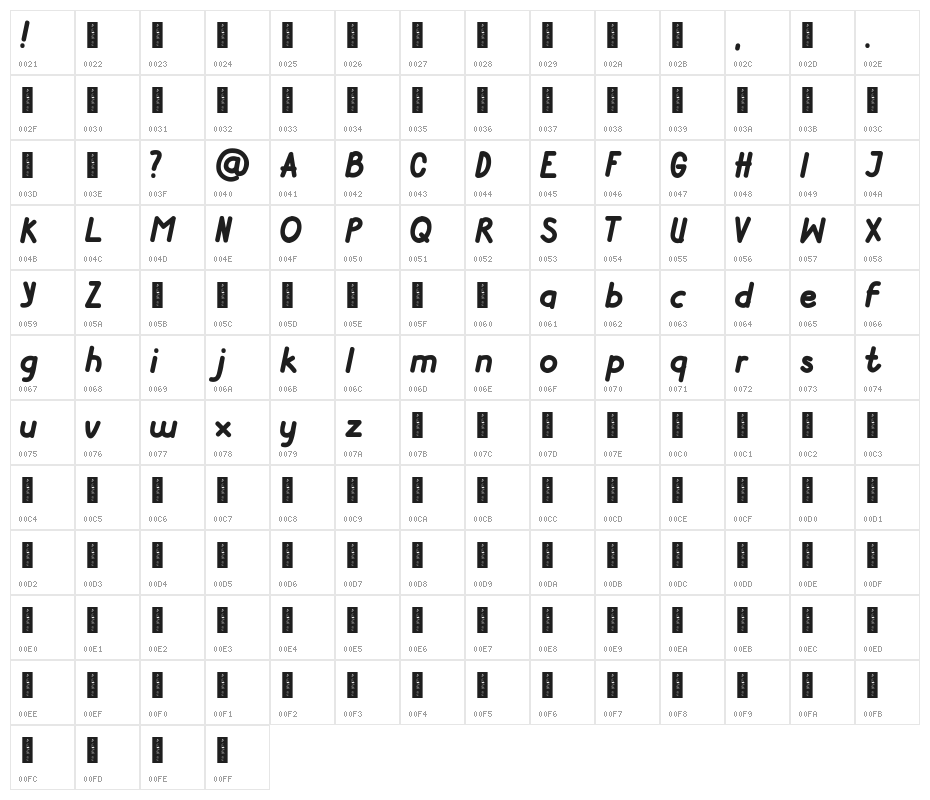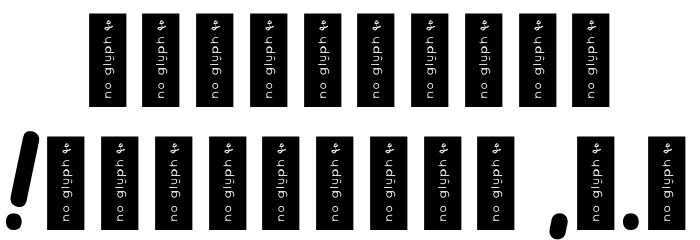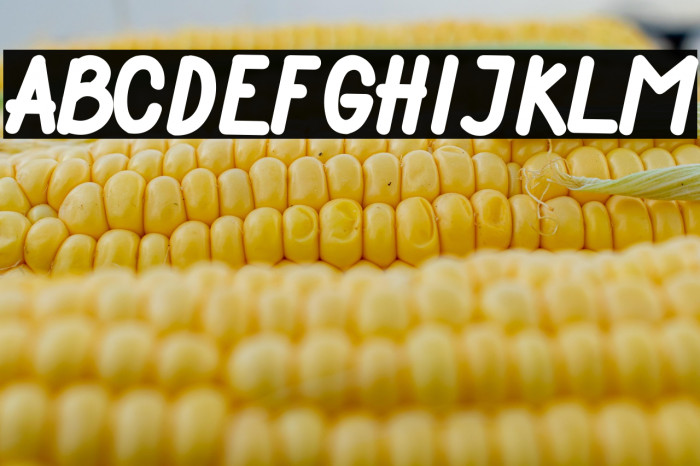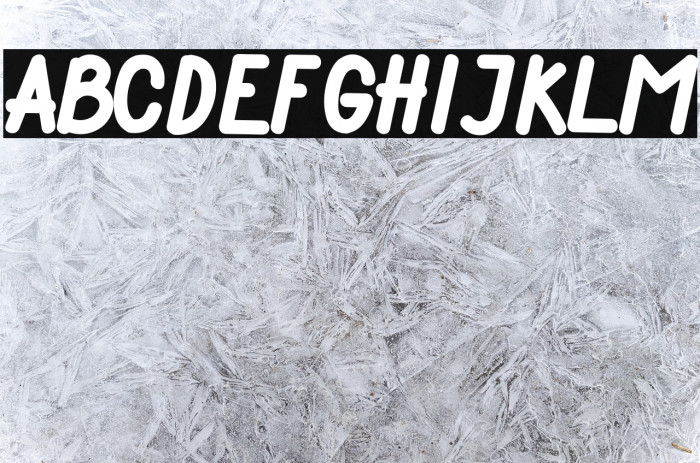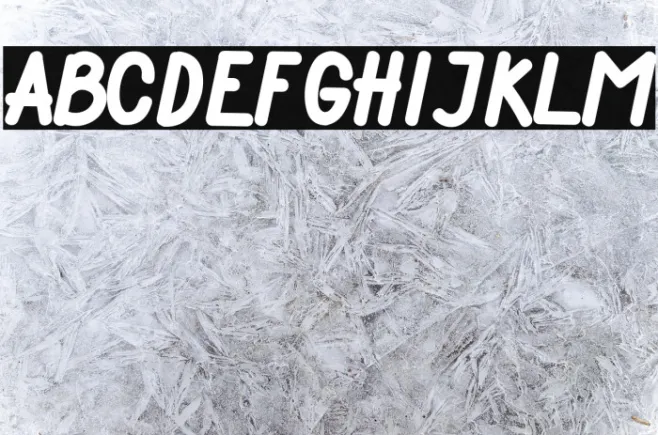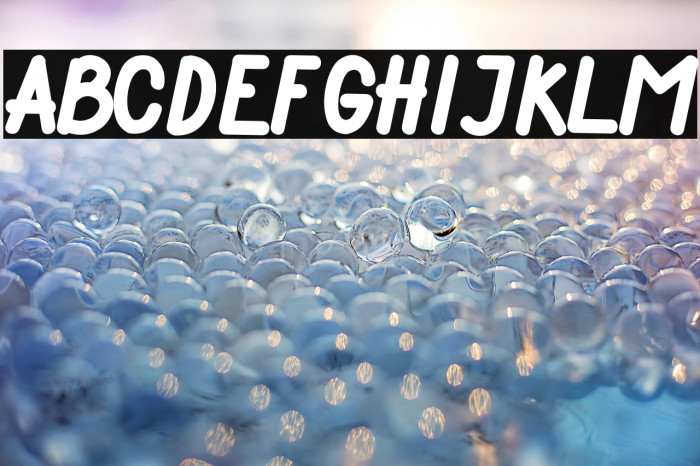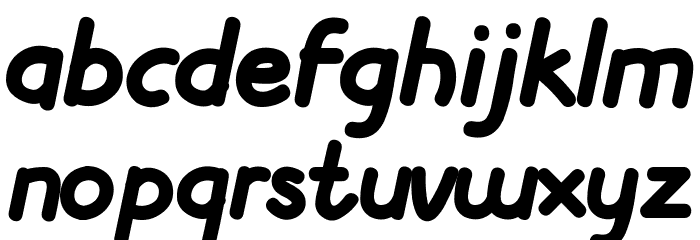
Get Lucky Font
Get Lucky Description
This font features a playful and rounded style with smooth curves and a friendly appearance. The letters are bold and have a consistent stroke width, giving them a strong presence. The uppercase and lowercase characters maintain a uniformity that enhances readability, while the rounded edges add a touch of softness. The font lacks certain special characters, which may limit its use in some contexts. Overall, it conveys a casual and approachable vibe, making it suitable for informal and creative projects.
| Proposed Projects | Ideal for children's books, playful branding, casual invitations, and creative posters. |